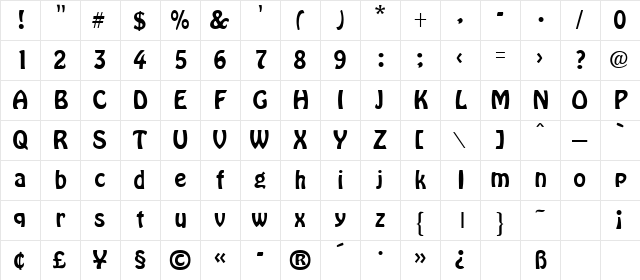
Hobby Headline Regular
Design Context for Hobby Headline
Hobby Headline is a composed and adaptable typeface that performs quietly and consistently across a wide range of design contexts.
Pro Tip: Use Hobby Headline in both headline and body roles to test its range before committing to a single application.